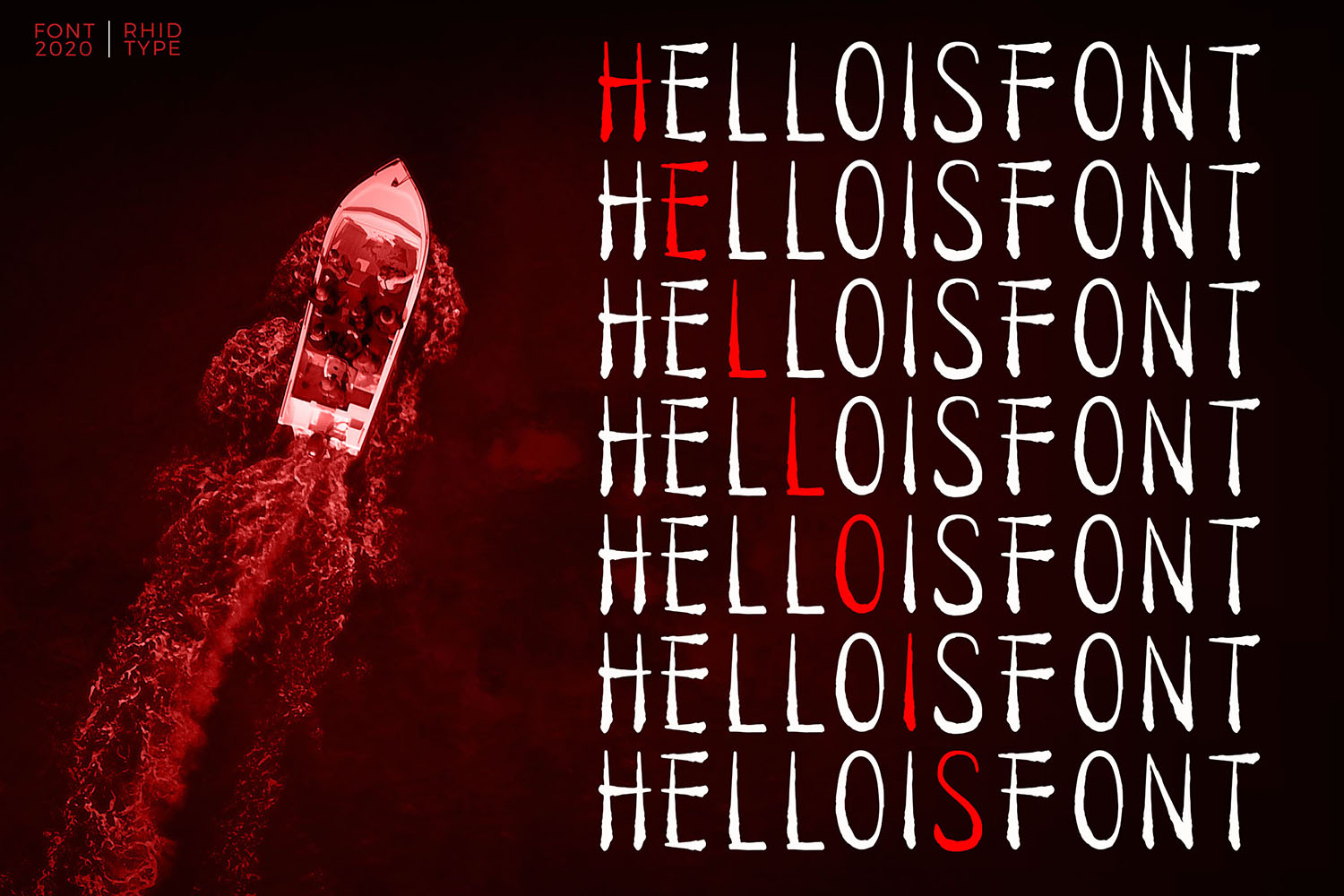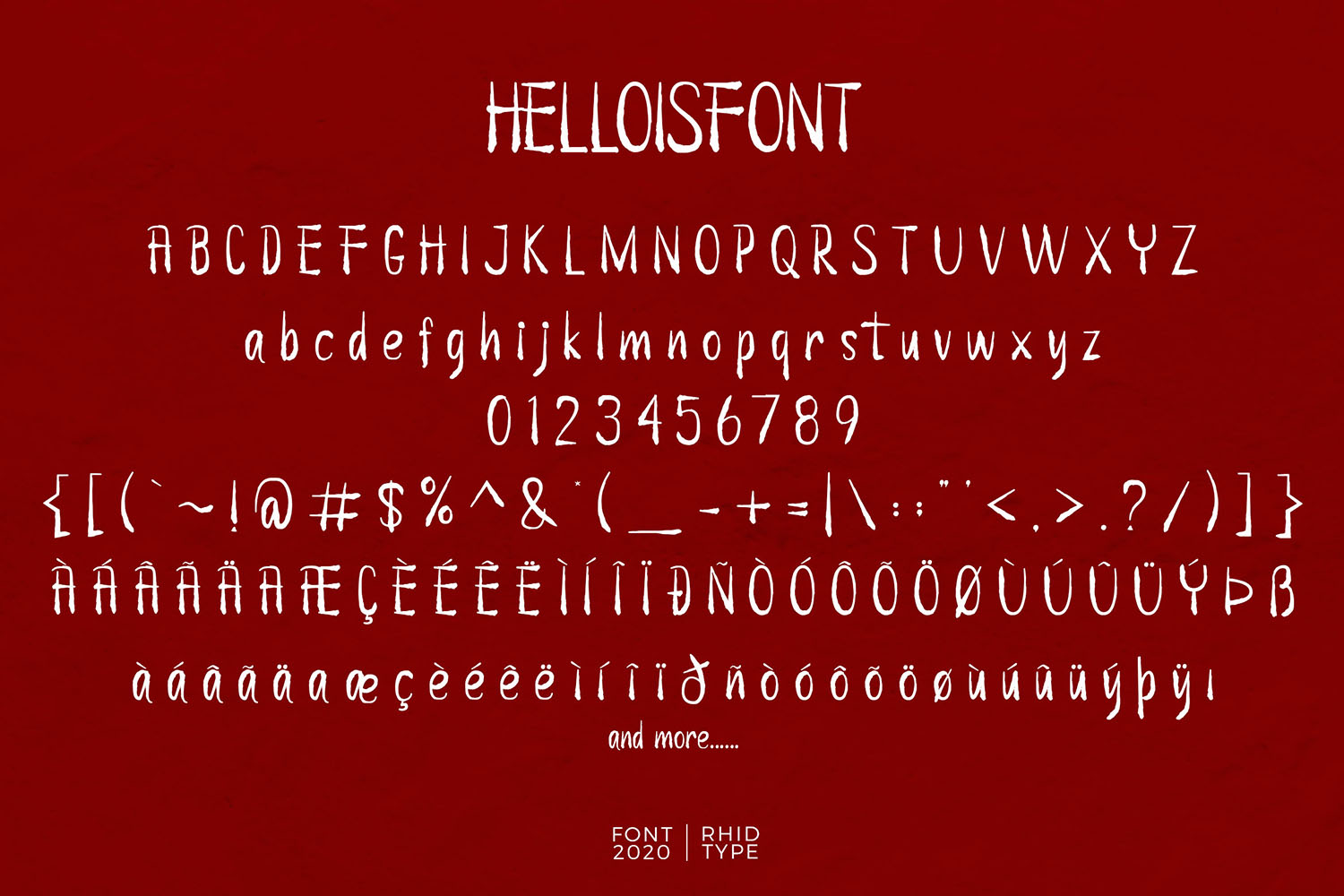
Helloisfont Free Font
Introducing Helloisfont Free Font, a spine-chilling and eerie display font designed to add a touch of horror and drama to your projects. Whether you’re creating Halloween-themed designs or planning a thematic party, this font is your perfect companion. Embrace it with confidence, and you’ll be thrilled with the chilling impact it brings to your creations. This free typeface was designed by a talented RHIDTYPE STUDIO. If you like it don’t forget to check out the full version.